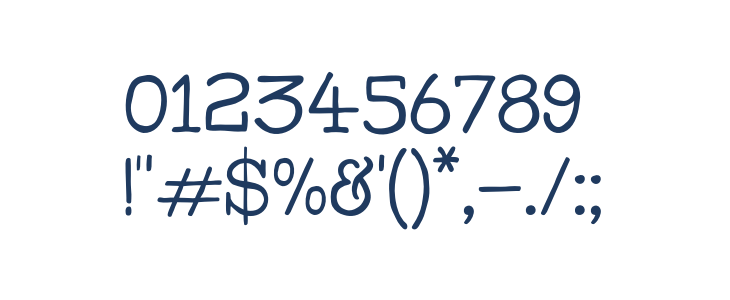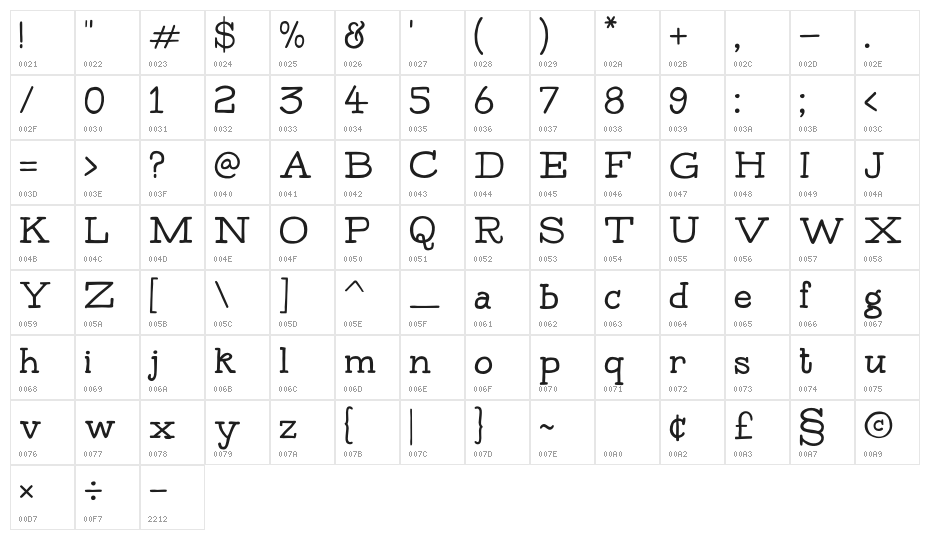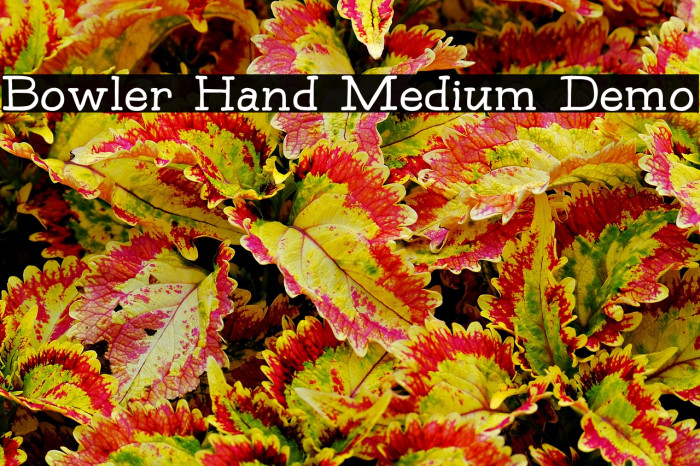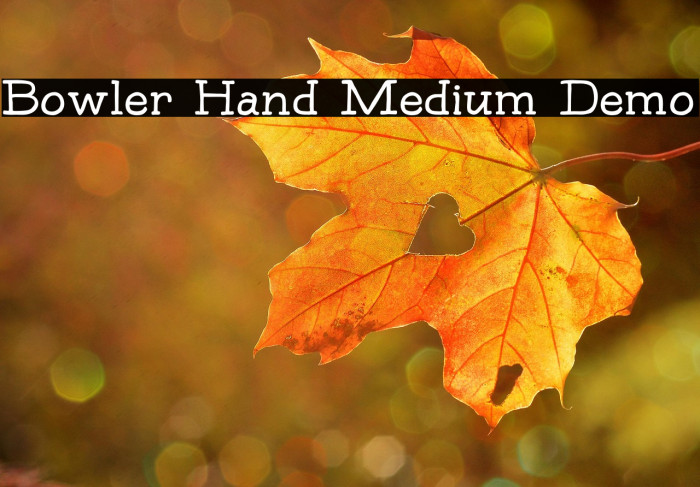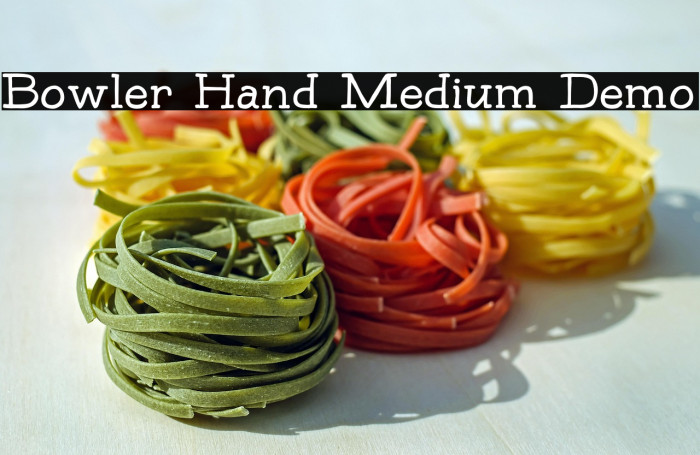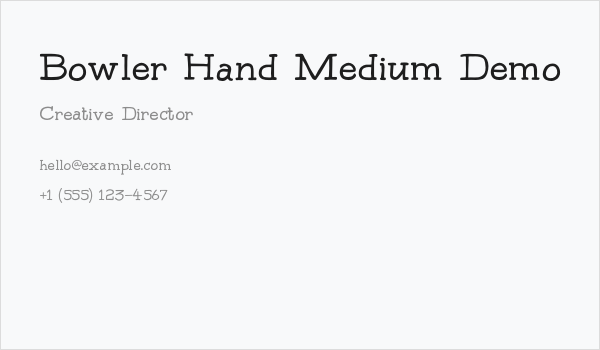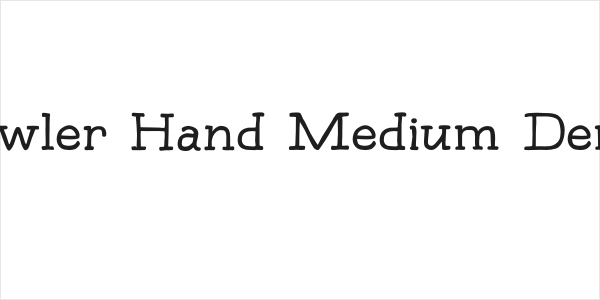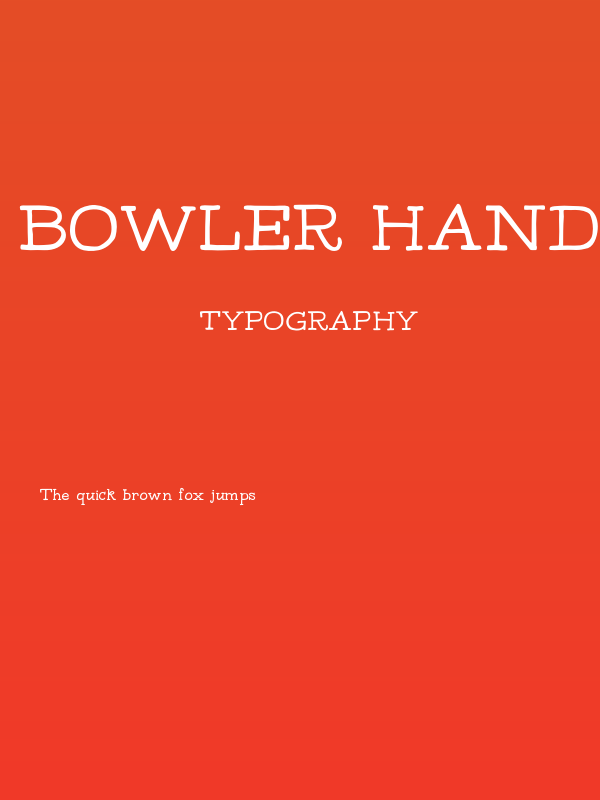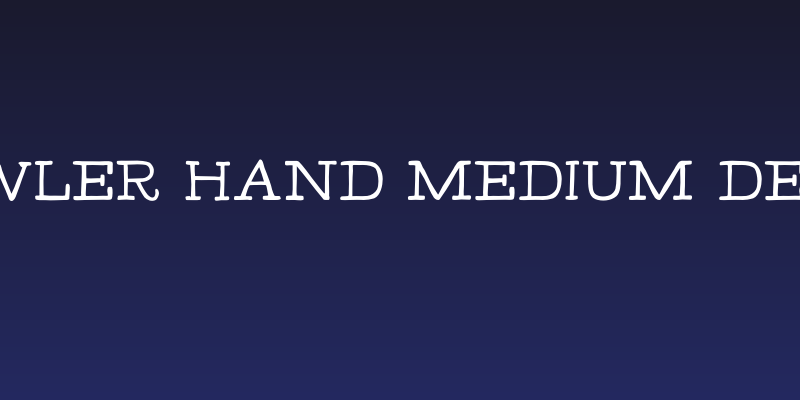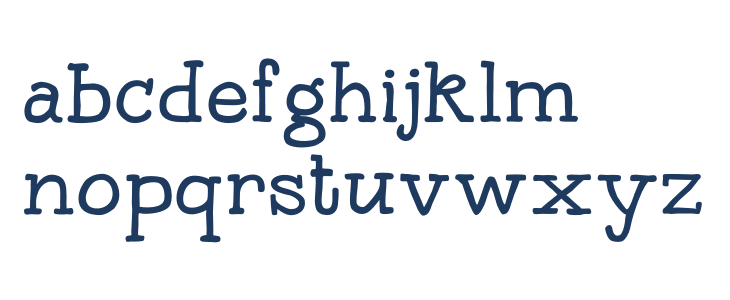
Bowler Hand Medium Demo Font
Bowler Hand Medium Demo Description
This font features a playful, handwritten style with a slightly irregular and organic appearance. The characters have a rounded, friendly look, with subtle variations in stroke width that add to its charm. The uppercase letters are bold and assertive, while the lowercase letters maintain a consistent flow, making it suitable for casual and informal designs. The numerals are clear and legible, with a distinctive style that complements the overall aesthetic. Special characters are well-integrated, maintaining the font's cohesive look. This font's unique personality makes it ideal for projects that require a touch of whimsy and creativity.
| Overall Style | Playful, Casual |
| Proposed Projects | Great for greeting cards, children's books, playful branding, and creative posters. |